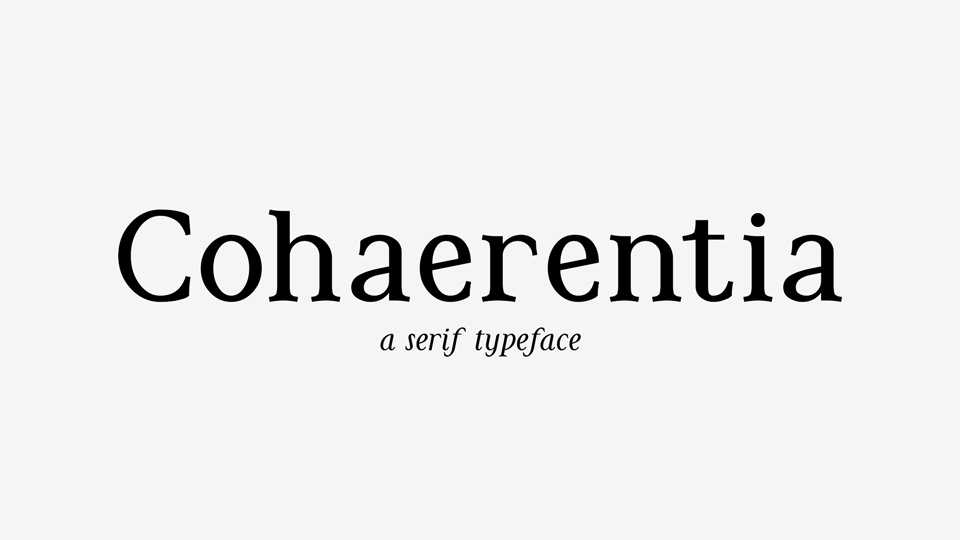
Download Cohaerentia typeface, a serif font family with three styles created chiefly in order to balance as possible graphic coherence and expressive freedom. Cohaerentia font is very legible when used in small body text.
Designer: Michele Giordano